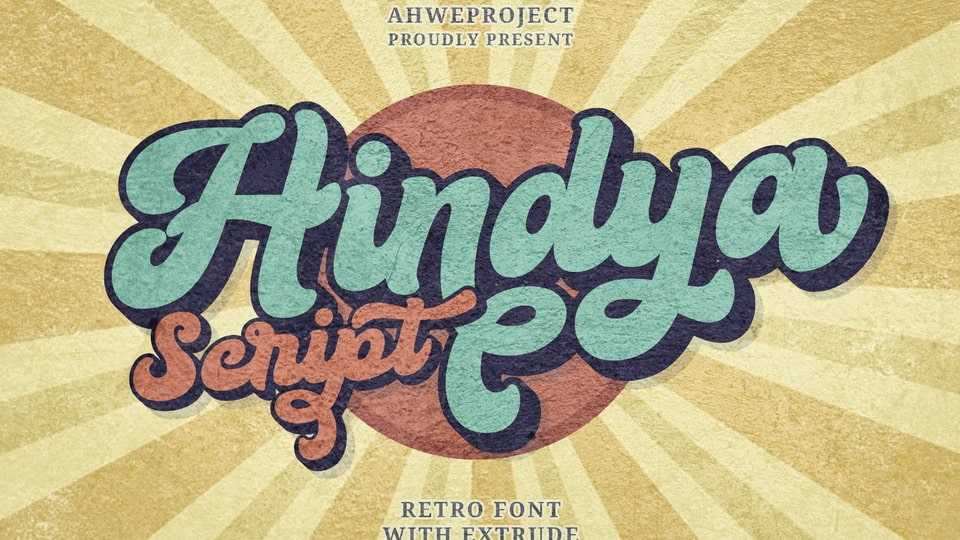
Download Hindya font, a bold and retro styled handwritten typeface. Hindya font reads as strong, confident, and dynamic and can add tons of nostalgic character to your designs.